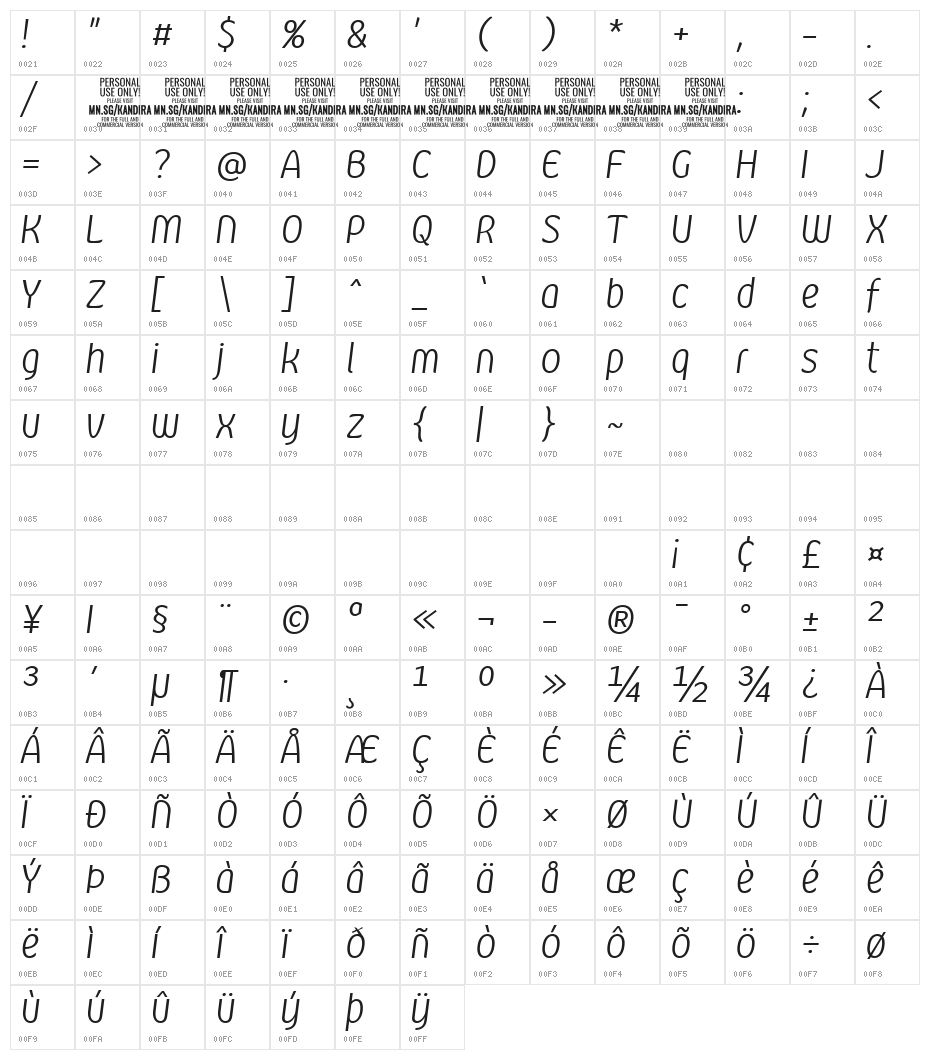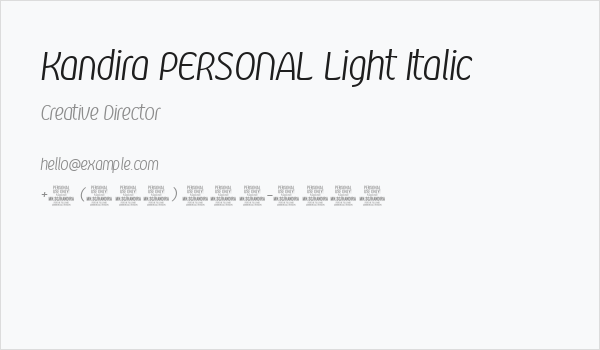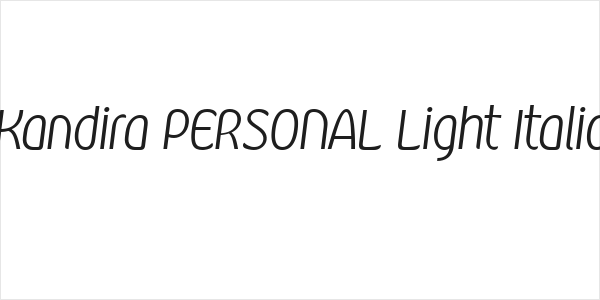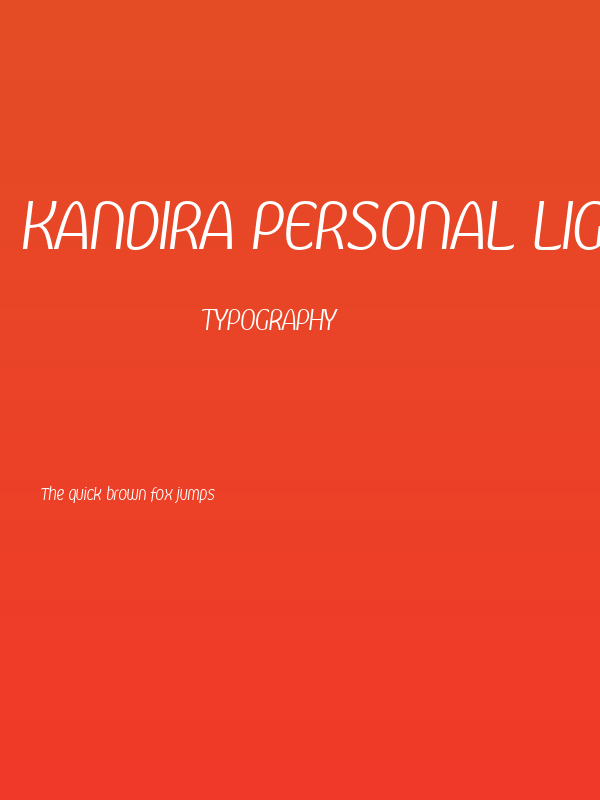
Kandira PERSONAL Light Italic Font
Kandira PERSONAL Light Italic Description
This font features a sleek and modern design with a light and airy feel. The italic style adds a dynamic and elegant touch, making it suitable for a variety of creative projects. The characters are slightly condensed, offering a streamlined appearance that enhances readability while maintaining a stylish edge. The smooth curves and consistent stroke width contribute to its contemporary aesthetic, making it a versatile choice for both digital and print media. The font includes a full set of uppercase and lowercase letters, numbers, and a range of special characters, ensuring comprehensive usability.
| Proposed Projects | Ideal for branding, editorial design, advertising, and web design projects. |